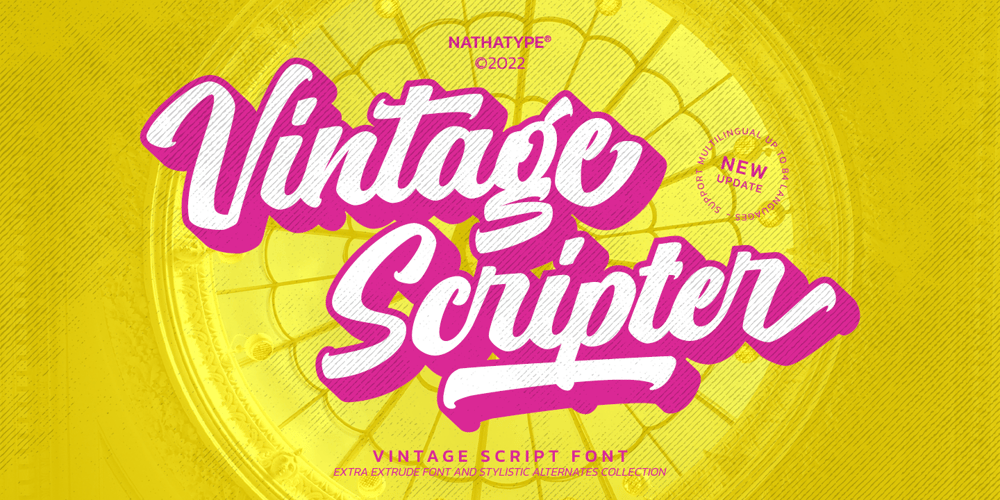
Vintage Scripter
Vintage Scripter font
Vintage Scripter Font Family was designed by Donis Miftahudin and published by Nathatype. Vintage Scripter contains 2 styles and family package options. Looking for a font that will make your branding stand out? Do you sometimes have an appetite for a bit more wholesome typography? Looking for a fabulous, stylish, and adventure font? We’ve got what you want.Vintage Scripter- AScript Font Vintage Scripter is a flowing and fun font. This font features thick and angular letters that easy on the eyes and nice to look while it’s also easy to read. Vintage Scripter becomes more special with extruding version option. It has a beautiful and balanced character, making it suitable for a variety of purposes. such as posters, logos, product packaging, branding, titles, signs, labels, mugs, book covers, quotes, and others.Our font always includes Multilingual Support to make your branding reach a global audience. Features: Ligatures Stylistic Set Swashes PUA Encoded Numerals and Punctuation Thank you for downloading premium fonts from Natha Studio